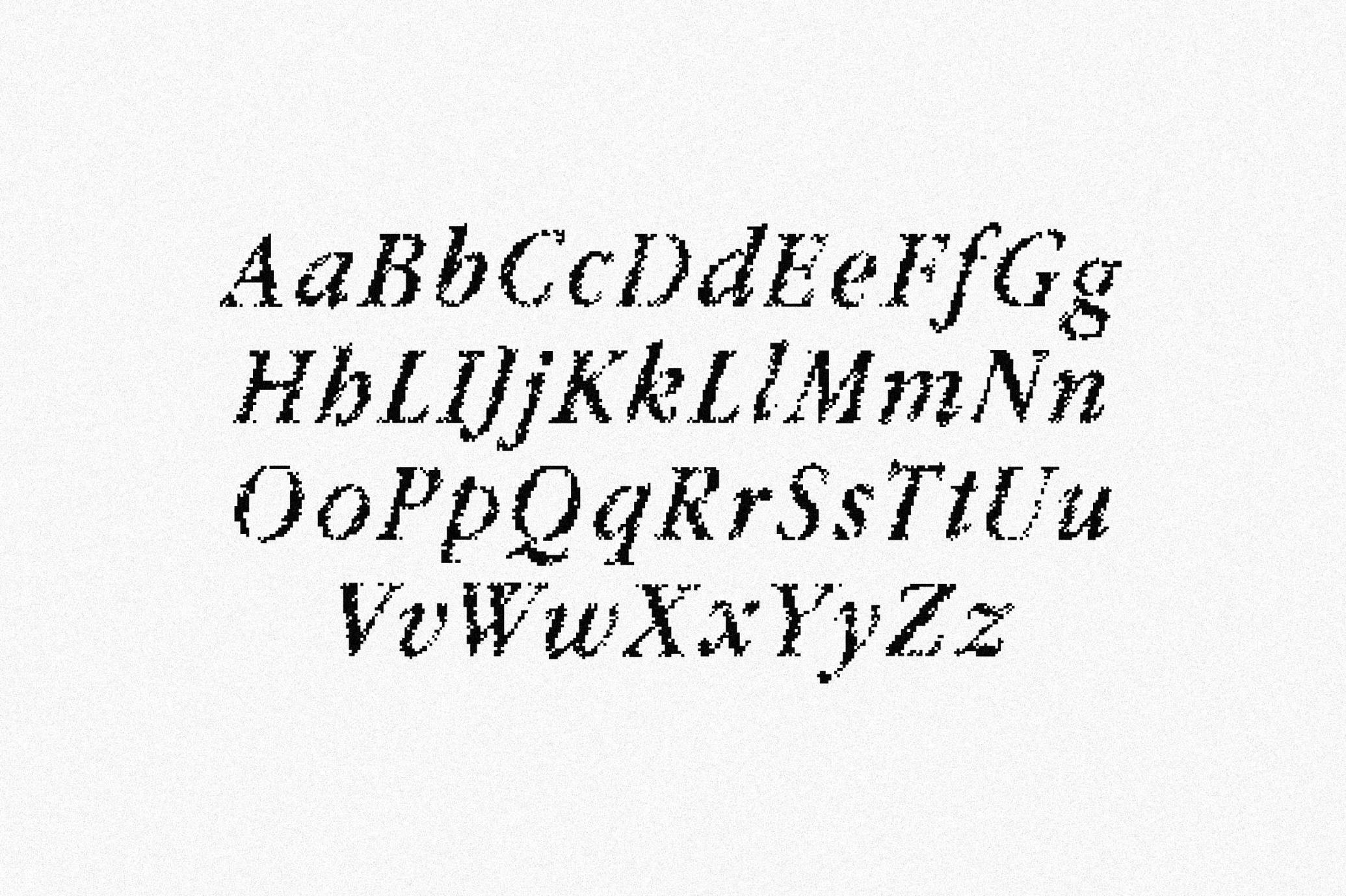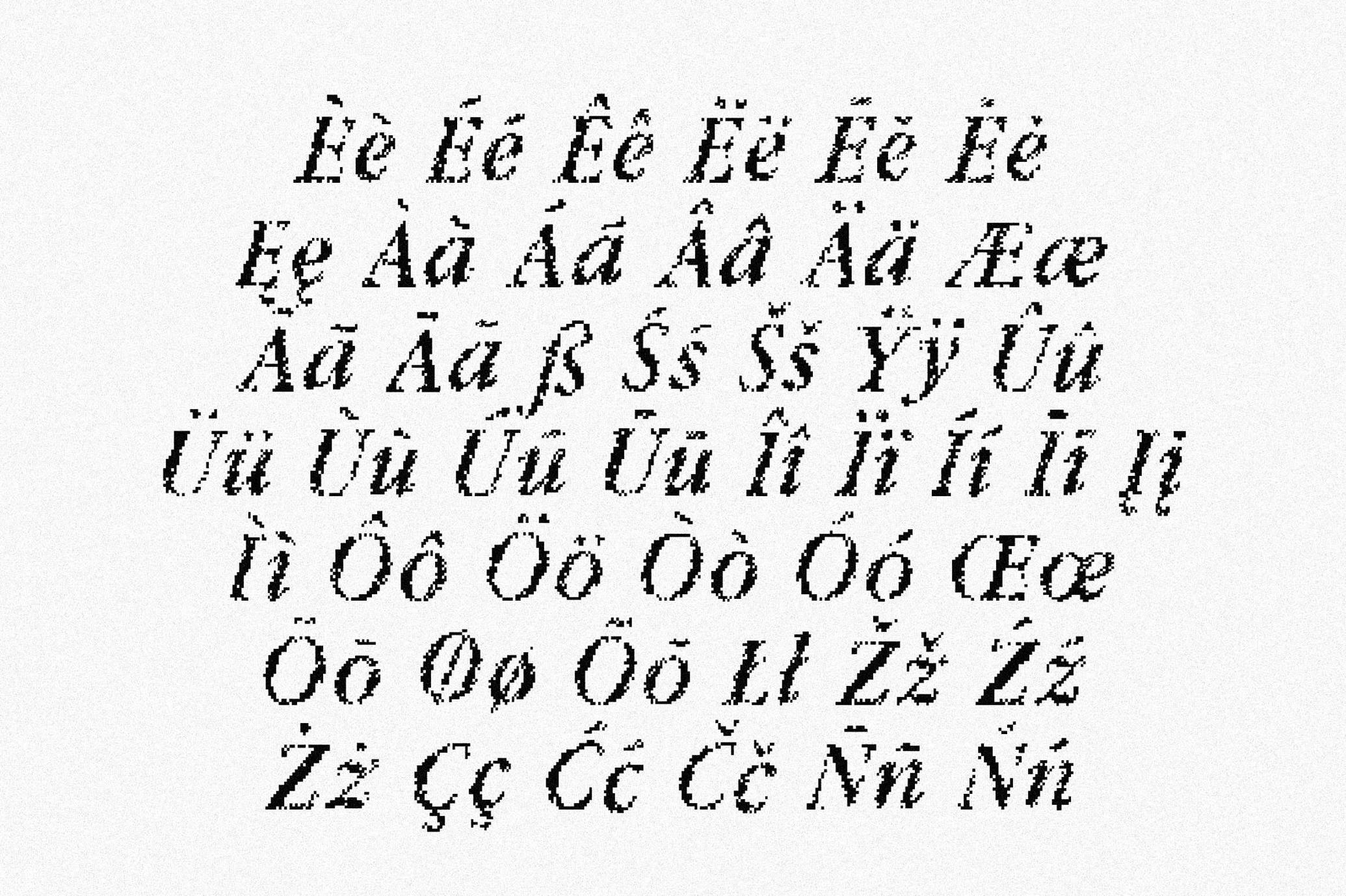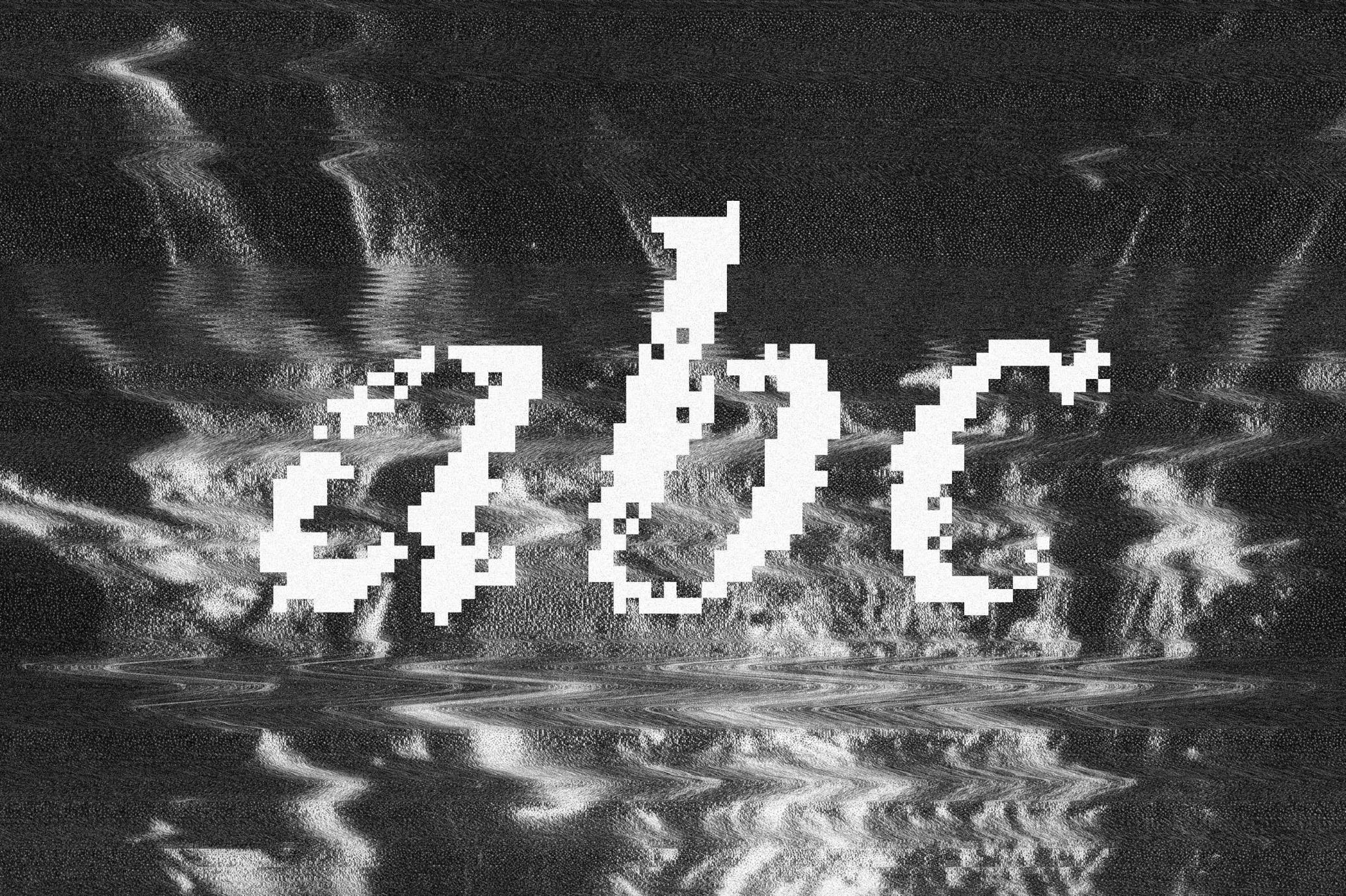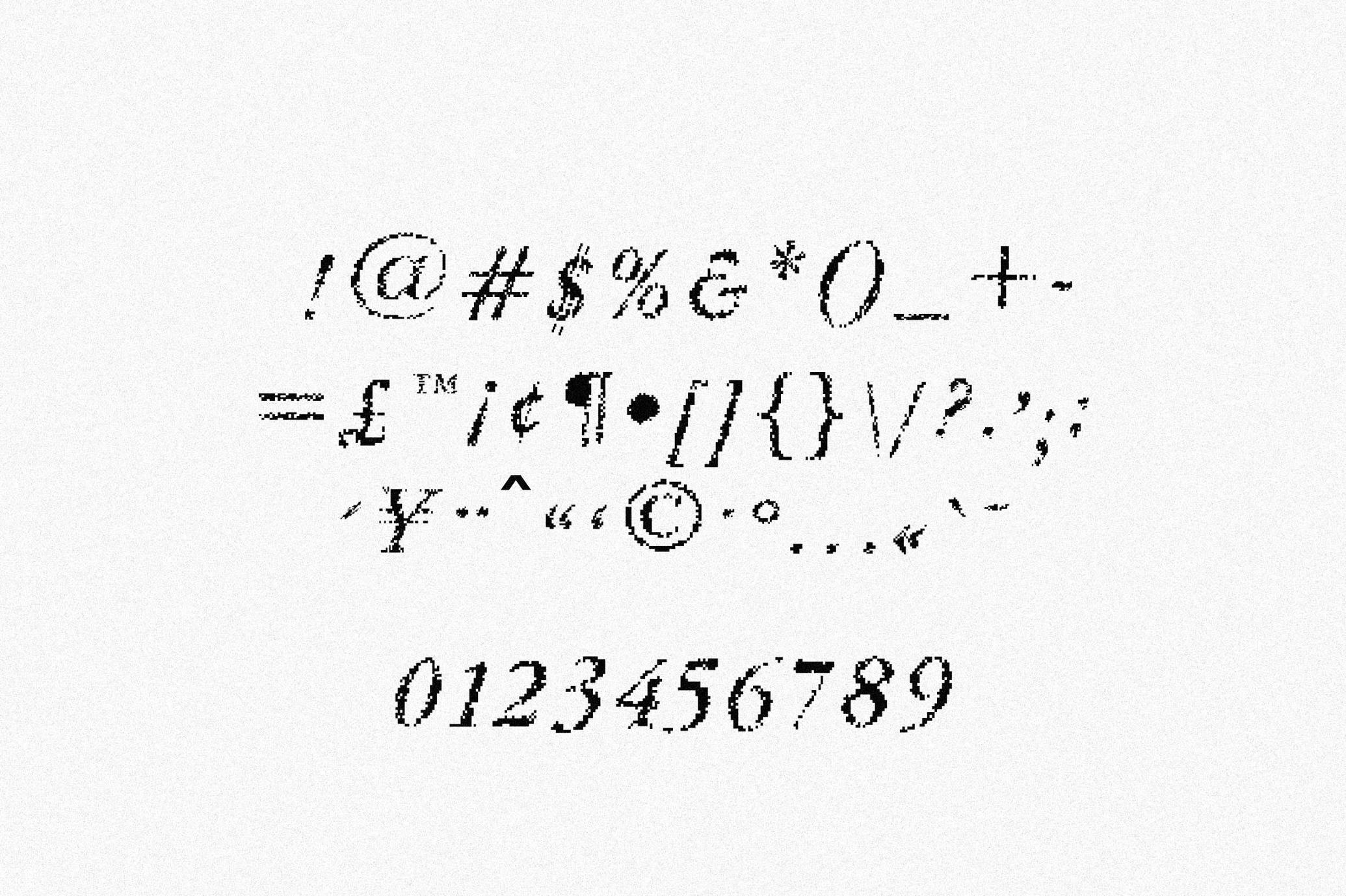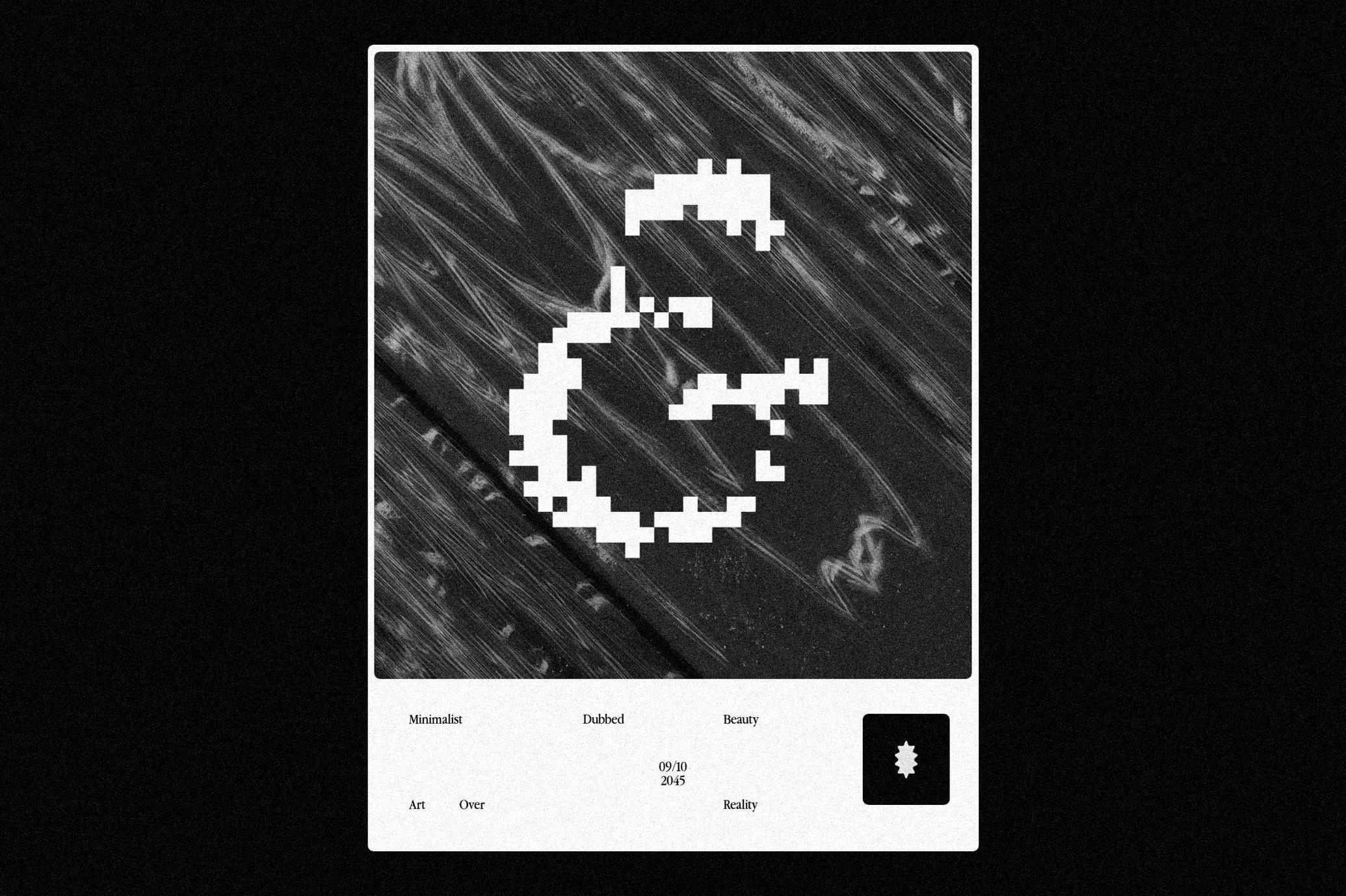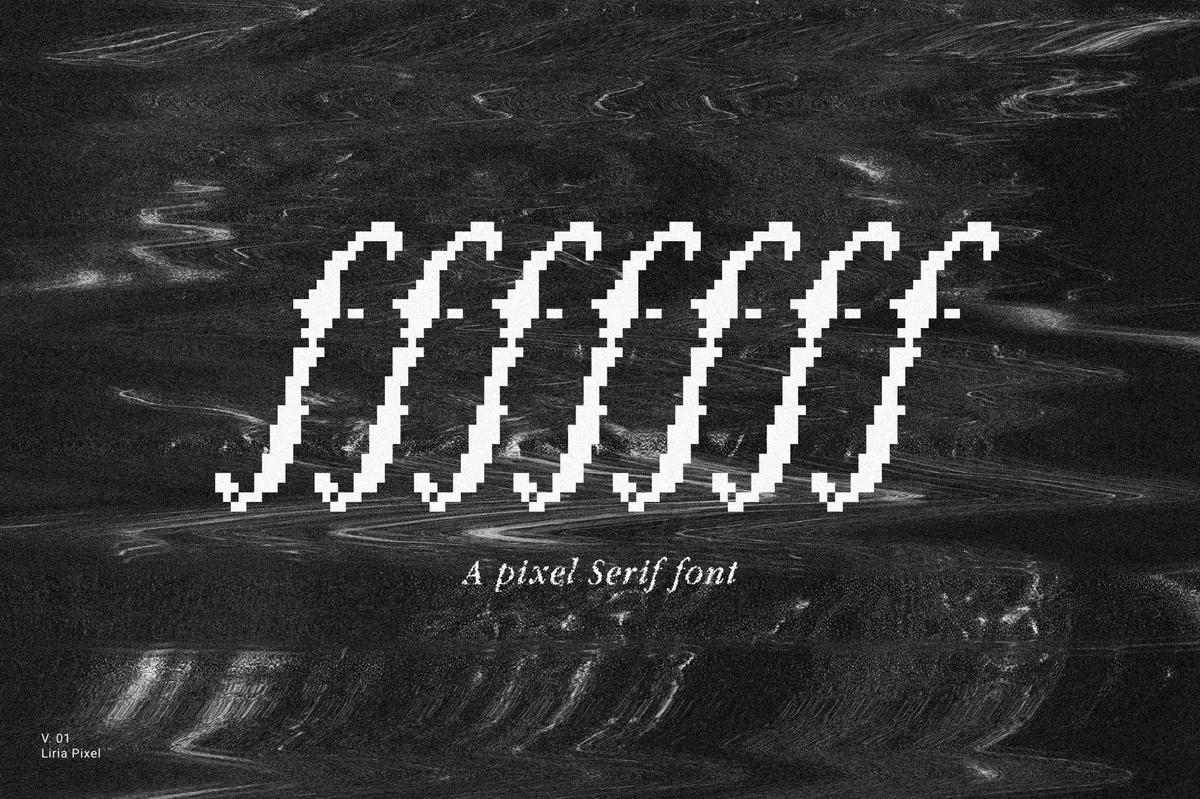
fffffff Pixel Serif Font
Fffffff
Liria Pixel is a pixel-serif display typeface that merges classic calligraphic curves with crisp 8-bit geometry and a subtle glitch texture. It includes uppercase/lowercase, numerals, punctuation, and extended Latin accents for versatile headline use. Ideal for posters, album art, and interfaces that need a retro-futuristic edge.